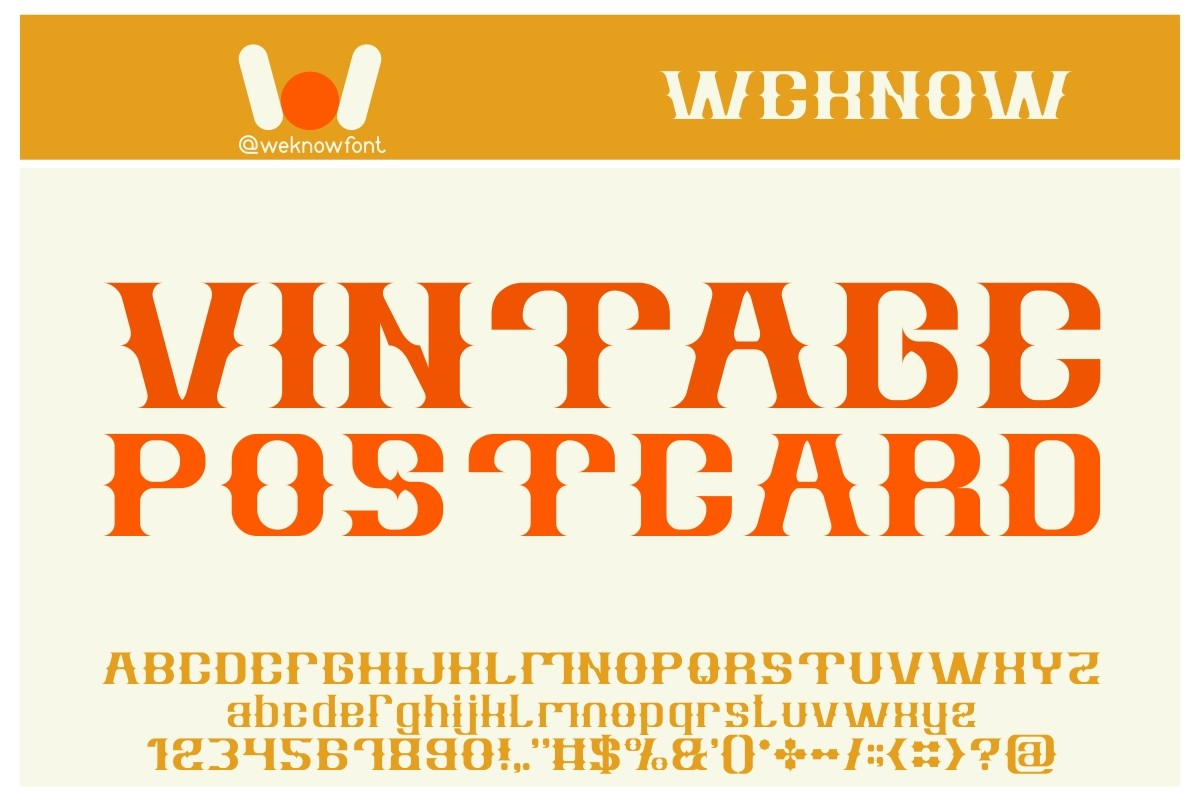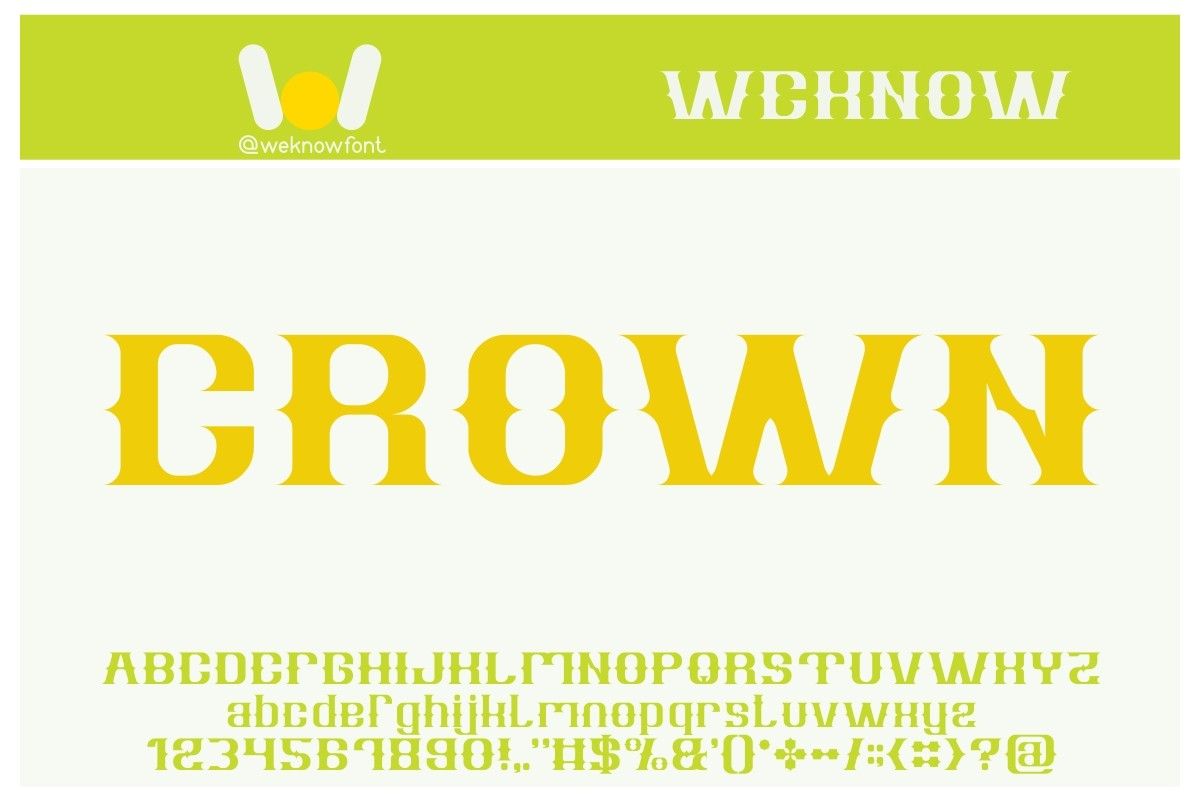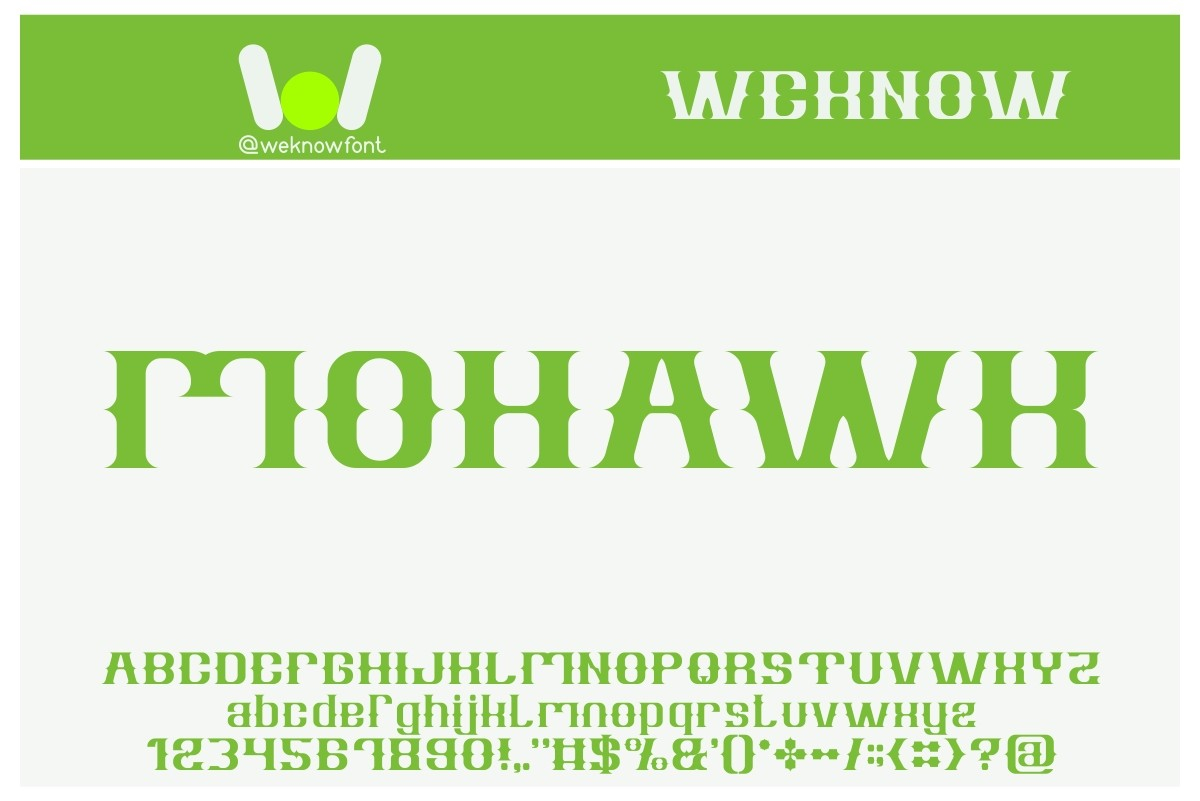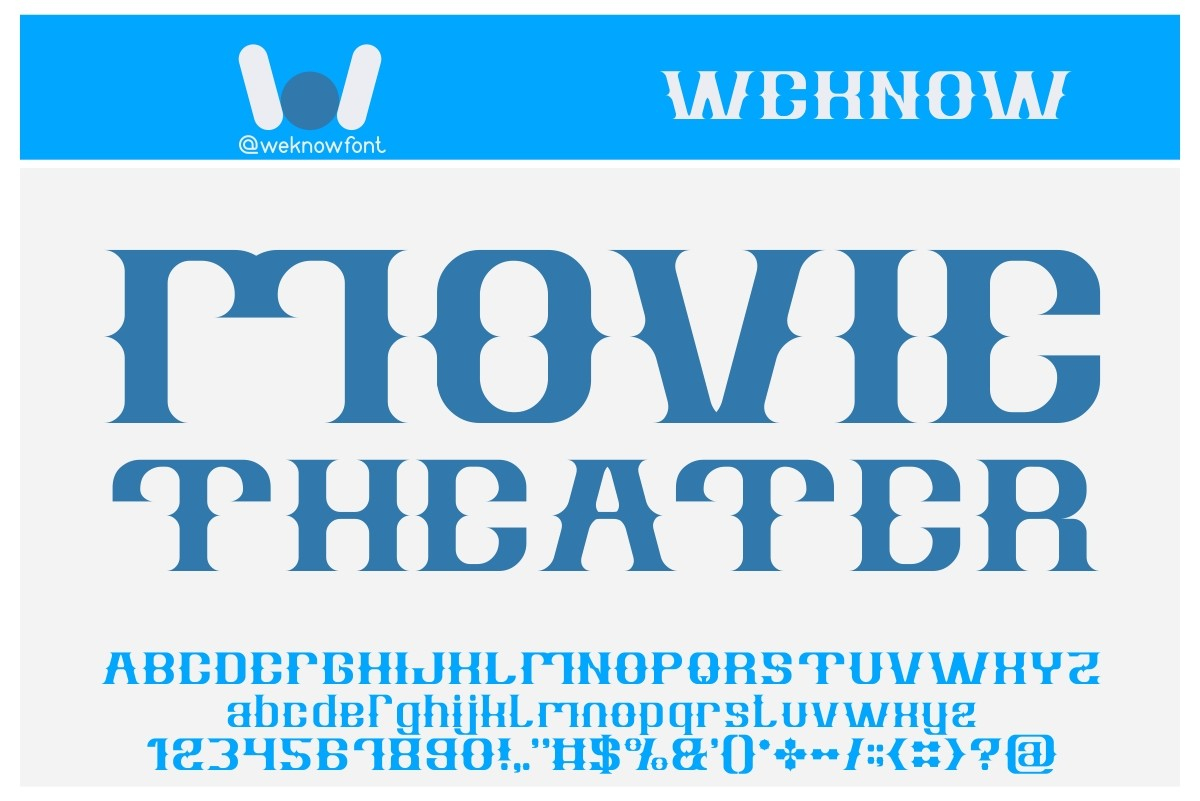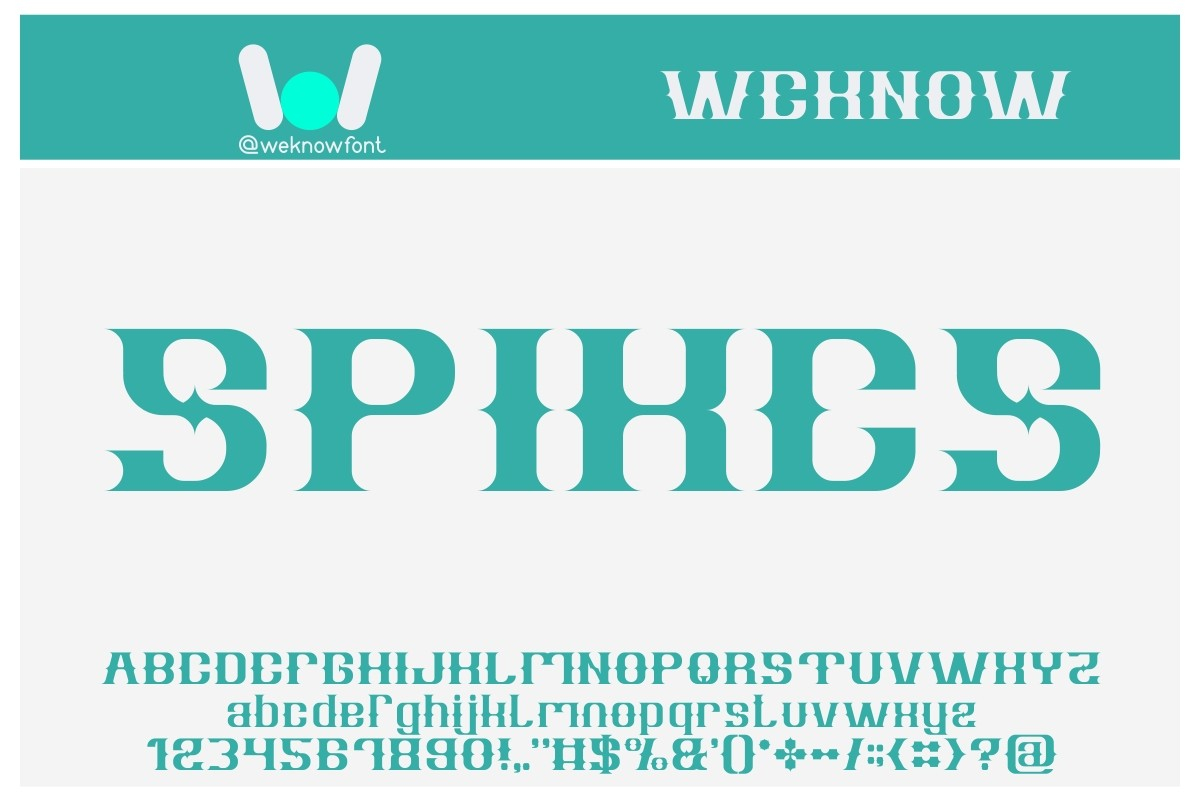
Vintage Postcard Font
About Vintage Postcard Font
Vintage Postcard is a fancy and bold looking blackletter font. It was designed to suit logos, the apparel industry, posters, album covers, movie titles, games and various other designs that require an assertive touch.